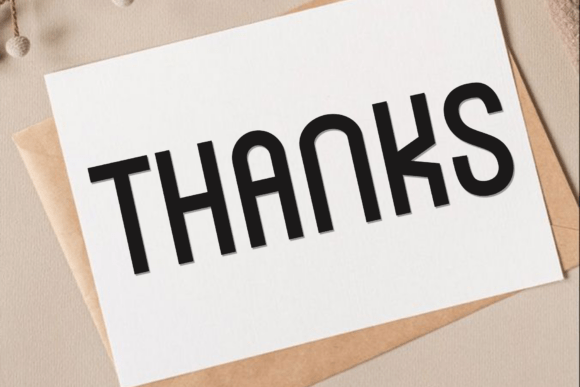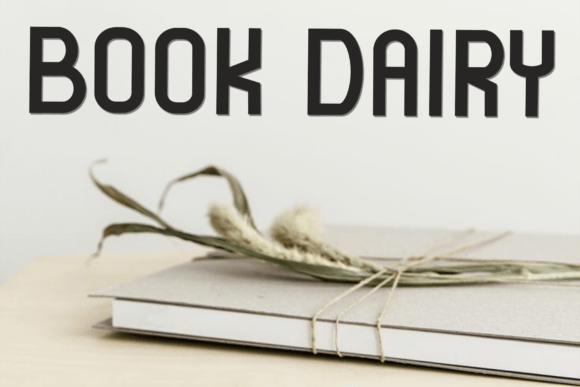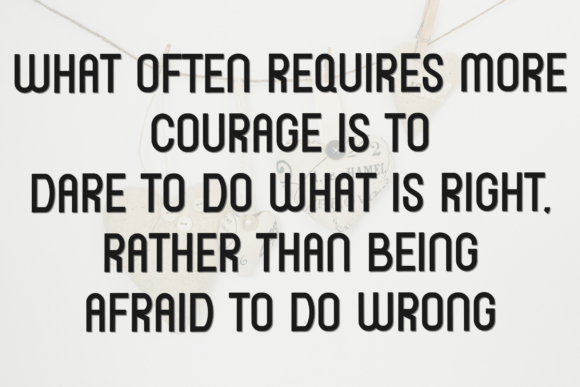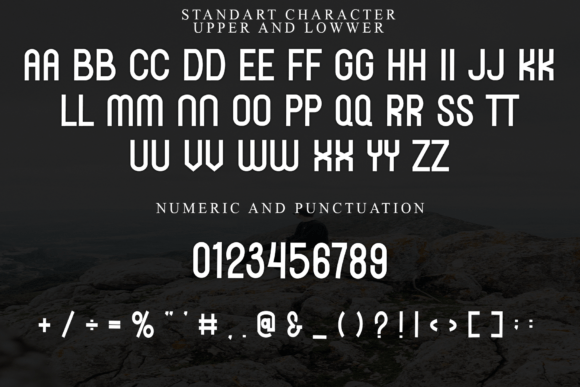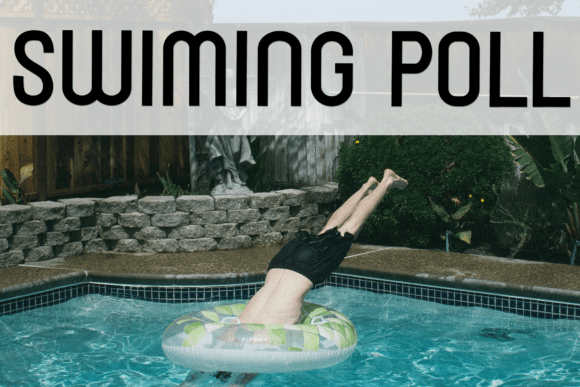
Introducing Amobic Font: Elevate Your Designs with a Unique and Eye-Catching Style
In the world of typography, a font can make or break a design project. That’s why designers and crafters are always on the lookout for fresh and exciting font styles that can add a touch of personality to their creations. If you’re searching for a font that exudes a soft, unique touch, look no further than Amobic Font. In this article, we’ll dive into the features and benefits of Amobic, and explore how it can elevate your designs to the next level.
The Distinctive Characteristics of Amobic Font
Amobic Font is a beautifully crafted font that boasts a distinctive and special character. Its soft, rounded strokes give it a unique touch that sets it apart from other fonts. The font’s design is carefully crafted to create a visually appealing effect that will capture the attention of your audience. Whether you’re working on a design project, crafting a logo, or creating a social media graphic, Amobic Font is the perfect choice.
One of the standout features of Amobic Font is its versatility. With a wide range of characters, you can use it for a variety of design projects, from simple crafts to complex creative works. The font’s flexibility makes it an excellent choice for designers and crafters who need a font that can adapt to different styles and themes. Whether you’re creating a children’s book, a fashion brand, or a food blog, Amobic Font is the perfect companion.
Amobic Font is an excellent choice for designers and crafters who want to add a personal touch to their creations. The font’s natural style makes it perfect for a wide range of products, from handmade crafts to digital products. Use it to create:
- Infographics and presentations
- Handmade crafts, such as cards and gift tags
- Digital products, such as ebooks and printables
Why Choose Amobic Font?
So, why should you choose Amobic Font for your design projects? Here are just a few reasons:
- Unique and eye-catching style: Amobic Font’s distinctive strokes give it a special character that will make your designs stand out.
- Versatility: With a wide range of characters, Amobic Font can be used for a variety of design projects and crafts.
- Natural and appealing style: Amobic Font’s natural style makes it perfect for a wide range of products, from handmade crafts to digital products.
In conclusion, Amobic Font is a beautiful and eye-catching font that is perfect for designers and crafters who want to add a unique touch to their creations. With its distinctive strokes, versatility, and compatibility, Amobic Font is an excellent choice for a wide range of design projects and crafts. Whether you’re a professional designer or a DIY crafter, Amobic Font is sure to elevate your designs and make them appealing to a wide range of audiences. So why wait? Try Amobic Font today and take your designs to the next level!